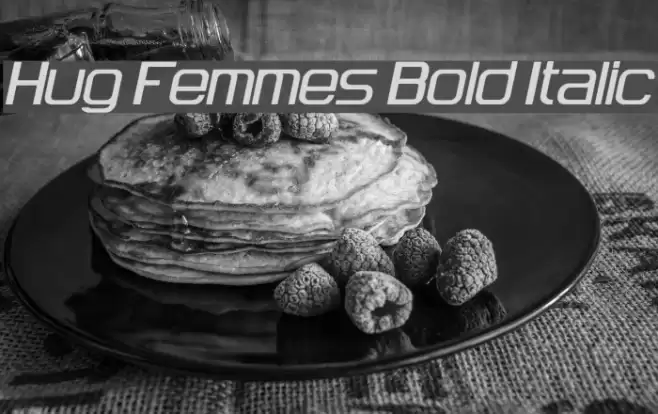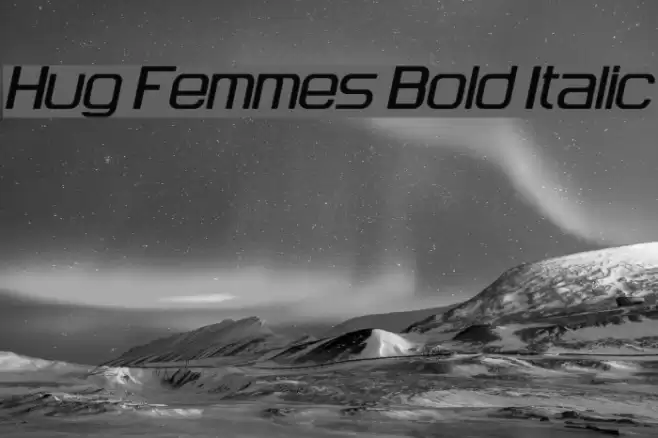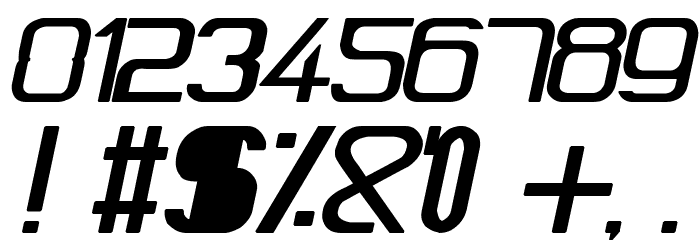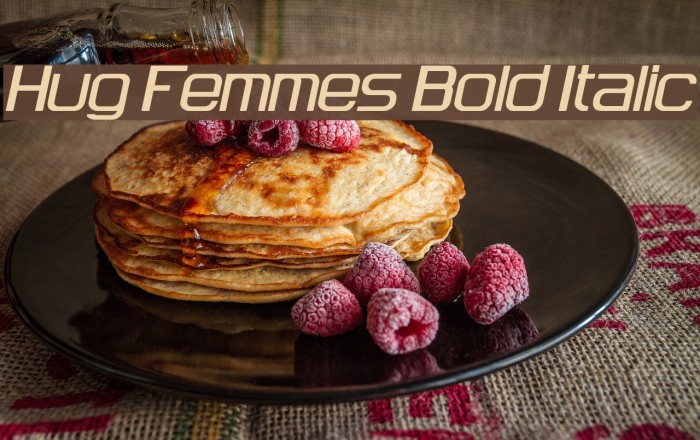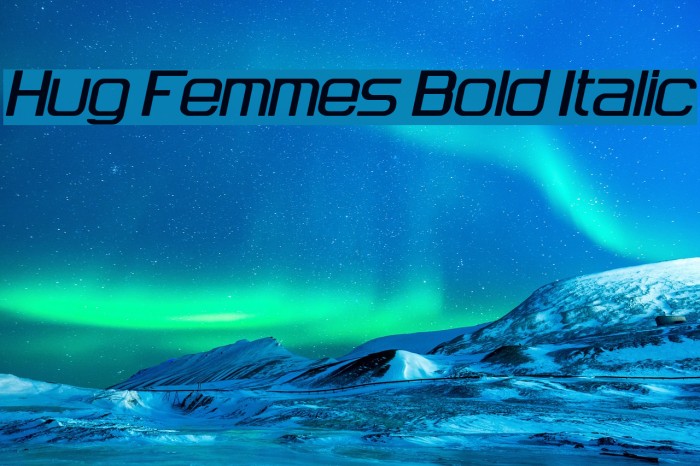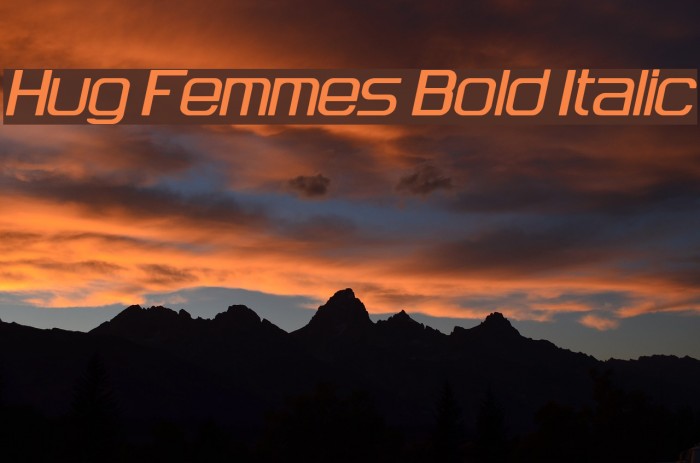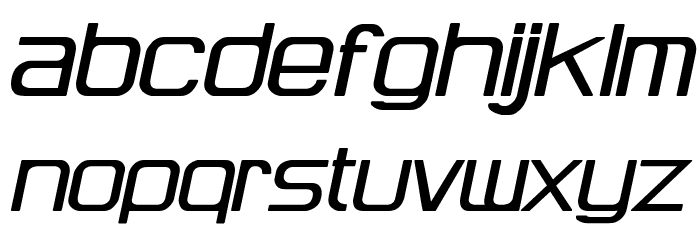
Hug Femmes Bold Italic Font
Hug Femmes Bold Italic Description
This font features a bold and italicized style with a modern and sleek appearance. The characters are slightly condensed, giving it a compact look while maintaining readability. The uppercase and lowercase letters are designed with a consistent slant, enhancing the italic effect. The numerals and special characters follow the same stylistic cues, ensuring uniformity across all glyphs. The strokes are consistent in weight, providing a balanced and cohesive visual impact. This font's design is ideal for projects that require a contemporary and dynamic feel.
A bold, italicized font with a modern, sleek, and slightly condensed style from Farsi fonts.